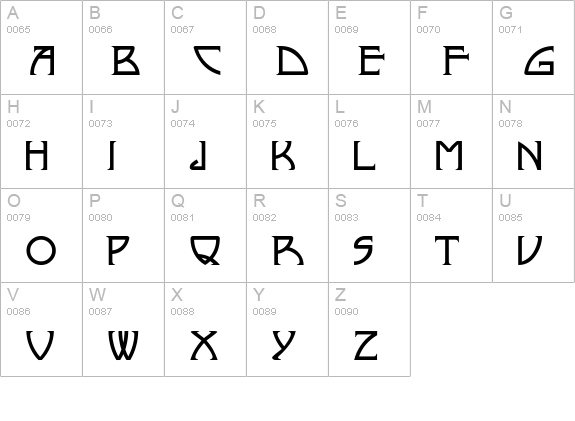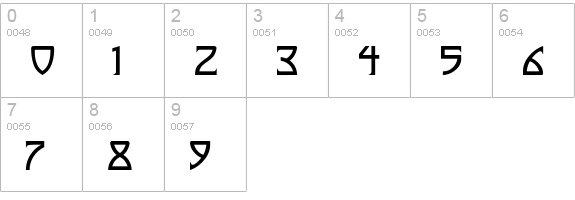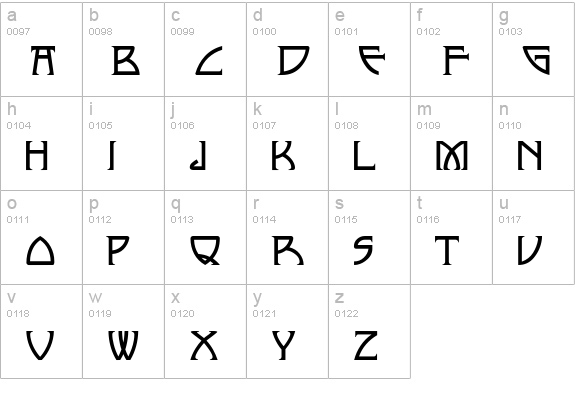
Nickley-NormalA Font Details
Nickley-NormalA is a versatile and modern font that effortlessly combines elegance with readability. With its sleek lines and sophisticated curves, this font is perfect for a wide range of design projects, from branding to editorial layouts. The clean and contemporary aesthetic of Nickley-NormalA makes it a standout choice for any designer looking to add a touch of sophistication to their work. What sets Nickley-NormalA apart is not just its style, but also its accessibility. This font is available for free download at FontsMarket.com, making it an easy and cost-effective option for designers of all levels. Whether you're working on a personal project or a client commission, Nickley-NormalA is a reliable choice that will elevate your designs to new heights. Incorporate Nickley-NormalA into your next project and see how its timeless appeal and modern sensibility can enhance your design work. Download this font for free today and unlock the endless possibilities it offers for your creative endeavors.